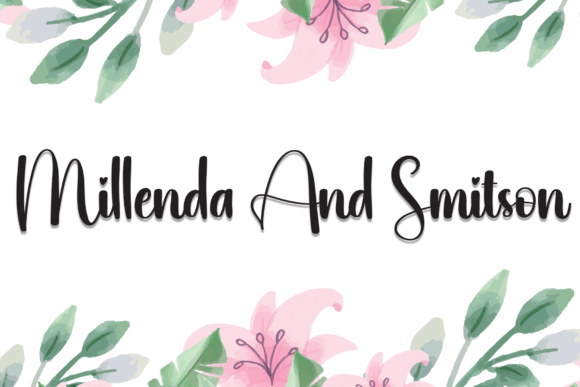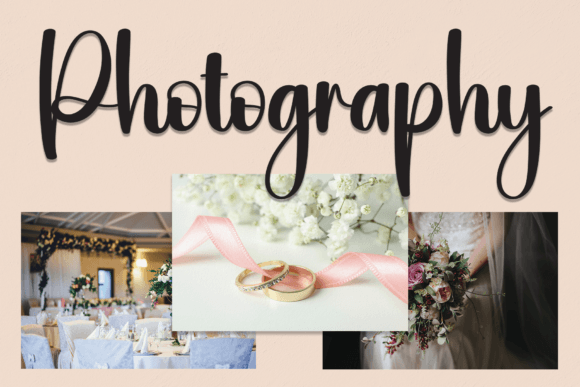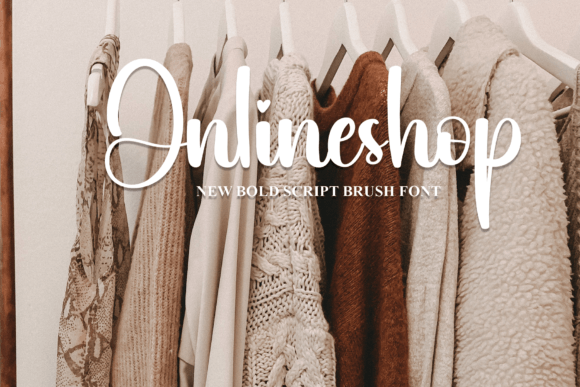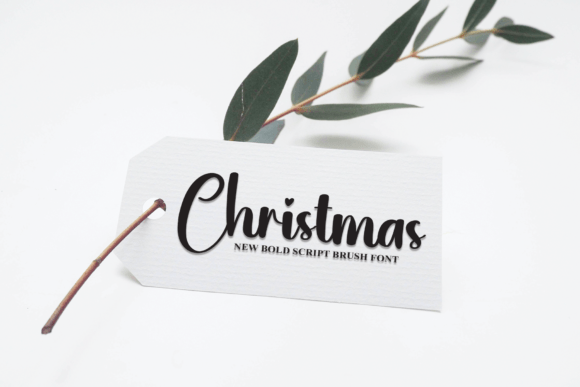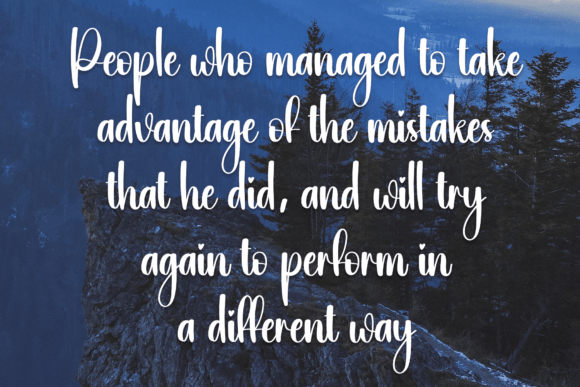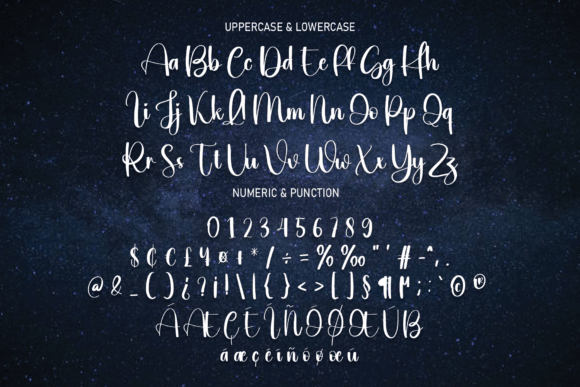
The Birth of a New Design Era
Have you ever been in the middle of a creative project, staring blankly at a blank canvas or computer screen, and suddenly the perfect font pops into your mind? It’s like a spark of inspiration, guiding your design towards perfection. For designers, the right font can make all the difference in bringing a project to life.
Enter Birthday Night Font, a stunning new style of letters that’s perfect for any project that requires a touch of handwriting charm. Whether it’s a wedding invitation, social media post logo, or product packaging design, Birthday Night Font is the perfect choice to add a personal touch. Its versatility makes it a valuable tool for designers, allowing them to create unique and eye-catching designs that stand out from the crowd.
Birthday Night Font Key Features
- Font Family: Birthday Night Font is a unique, hand-drawn font designed specifically for birthday celebrations.
- Character Set: Includes a wide range of characters, including uppercase and lowercase letters, numbers, and special characters, making it suitable for various design projects.
- Unique Characteristics: Features a playful, handwritten style with bold lines and dynamic flourishes, making it perfect for adding a celebratory touch to birthday-themed designs.
Birthday Night Font Review
Overall, I think Birthday Night Font is a decent choice for its intended use, but it’s not without its limitations. Let’s start with what works well:
- ✨ The font has a clear party vibe, making it perfect for birthday invitations, party decorations, and other celebratory materials.
- ✨ The bold and playful style is great for grabbing attention and adding a festive touch to your designs.
- ✨ The font is highly customizable, allowing you to adjust its color, size, and spacing to fit your specific needs.
- ⚠️ The font may not be suitable for formal or professional designs, as its playful style can come across as juvenile or unprofessional.
- ⚠️ Some characters may not render correctly, particularly in certain font sizes or styles, which can lead to inconsistent design.
- ⚠️ The font may not be compatible with all operating systems or devices, which can result in formatting issues.
Overall, Birthday Night Font is a solid choice for casual, party-themed designs, but it may not be the best fit for more formal or complex projects.
Tips for Getting the Most Out of Birthday Night Font
Some tips for using Birthday Night Font effectively include:
- Using it in bold or italic styles to add emphasis.
- Combining it with other fonts to create a unique and playful look.
- Experimenting with different text colors and backgrounds to create a festive atmosphere.
Some common use cases for Birthday Night Font include:
- Invitations and party announcements.
- Decorations and graphics for birthday parties.
- Personalized birthday cards and gifts
Alternatives to Birthday Night Font
Avenir Next is a modern sans-serif font that is highly legible and versatile. It’s suitable for a wide range of designs, from corporate materials to fashion brands. Avenir Next is a great alternative to Birthday Night Font for designers who want a clean and sophisticated look.
Comparison: Avenir Next is more formal and professional than Birthday Night Font, making it a better choice for corporate or business-related designs. However, it lacks the whimsical feel of Birthday Night Font, which may be a drawback for some designers.
Q: Are there any specific font size or style recommendations for using the Birthday Night Font?
For optimal readability and visual impact, we recommend using the Birthday Night Font at sizes between 14pt and 36pt. Experiment with different font styles, such as bold, italic, and regular, to find the best combination for your design project. Additionally, consider adjusting the font spacing and line height to ensure clear readability.